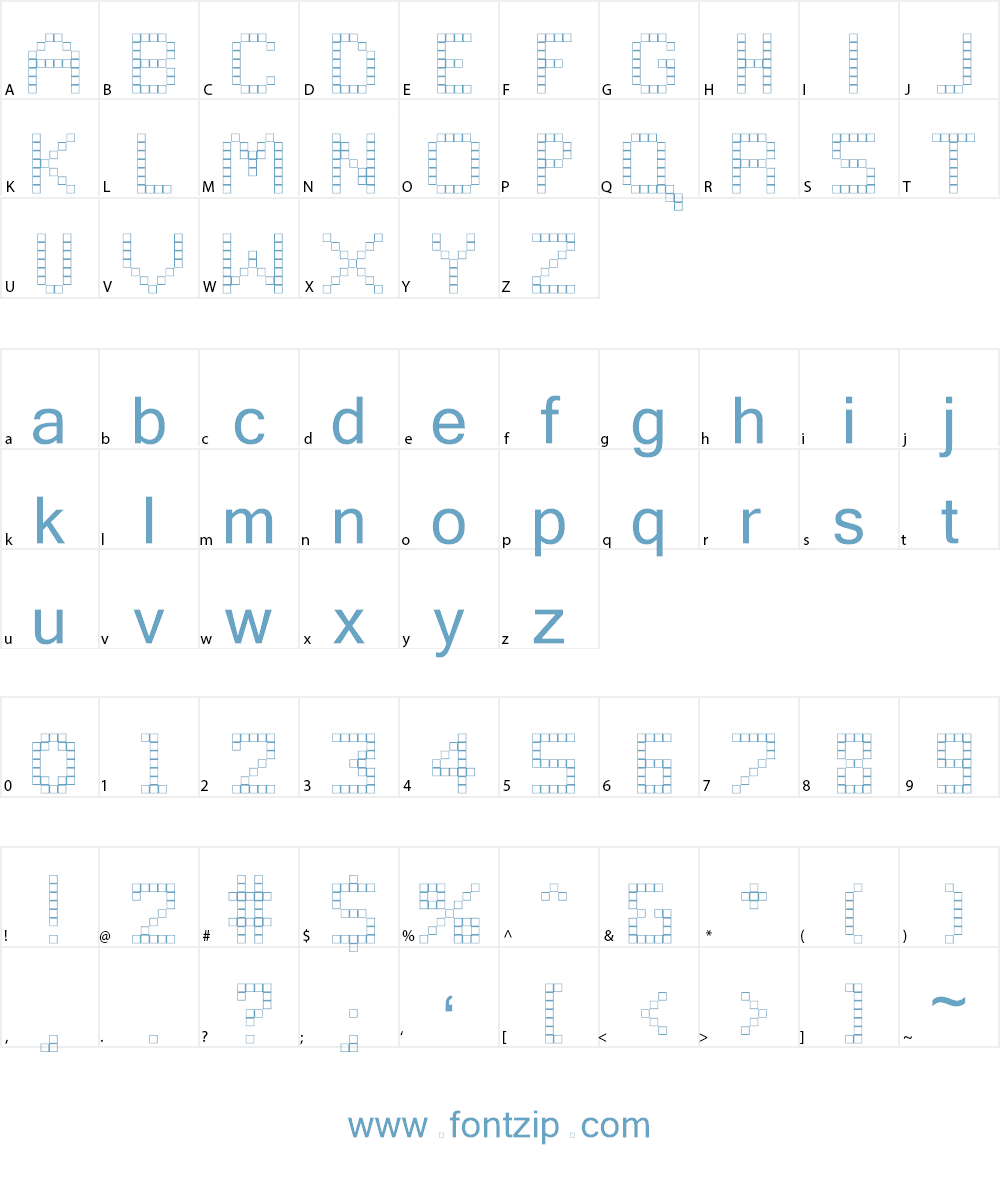
Retroscape III is an Outlined Bitmap style relative of Retroscape by Cannot Into Space Fonts. Licensed under the Creative Commons CC0 Public Domain License.